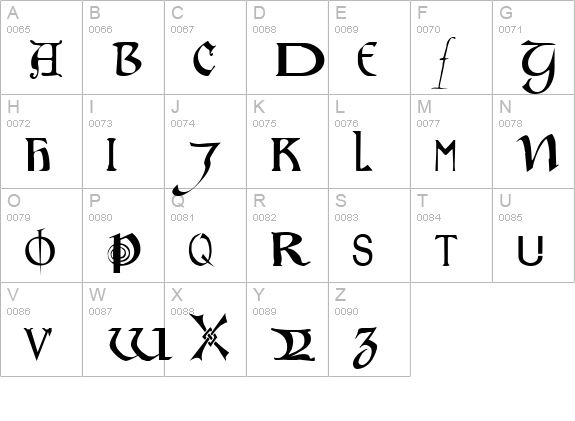
Motley font is a unique and versatile typeface that exudes creativity and personality. With its playful yet sophisticated design, Motley is perfect for a wide range of projects, from branding to editorial design. This font features a varied and eclectic mix of styles, making it a standout choice for adding a touch of whimsy to your work. Best of all, Motley font is available for free download at FontsMarket.com. This means you can easily access this eye-catching font and incorporate it into your designs without any cost. Don't miss out on the opportunity to enhance your projects with the distinctive charm of Motley font - download it today and let your creativity shine!